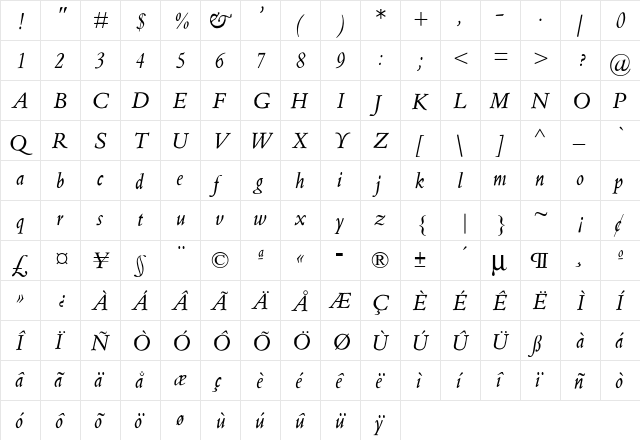
Poliphilus Ital Regular
Design Context for Poliphilus Ital Typeface
Poliphilus Ital takes a measured approach to typography — its balanced proportions and neutral character make it a reliable workhorse for both digital and print work.
Pro Tip: Use Poliphilus Ital in both headline and body roles to test its range before committing to a single application.